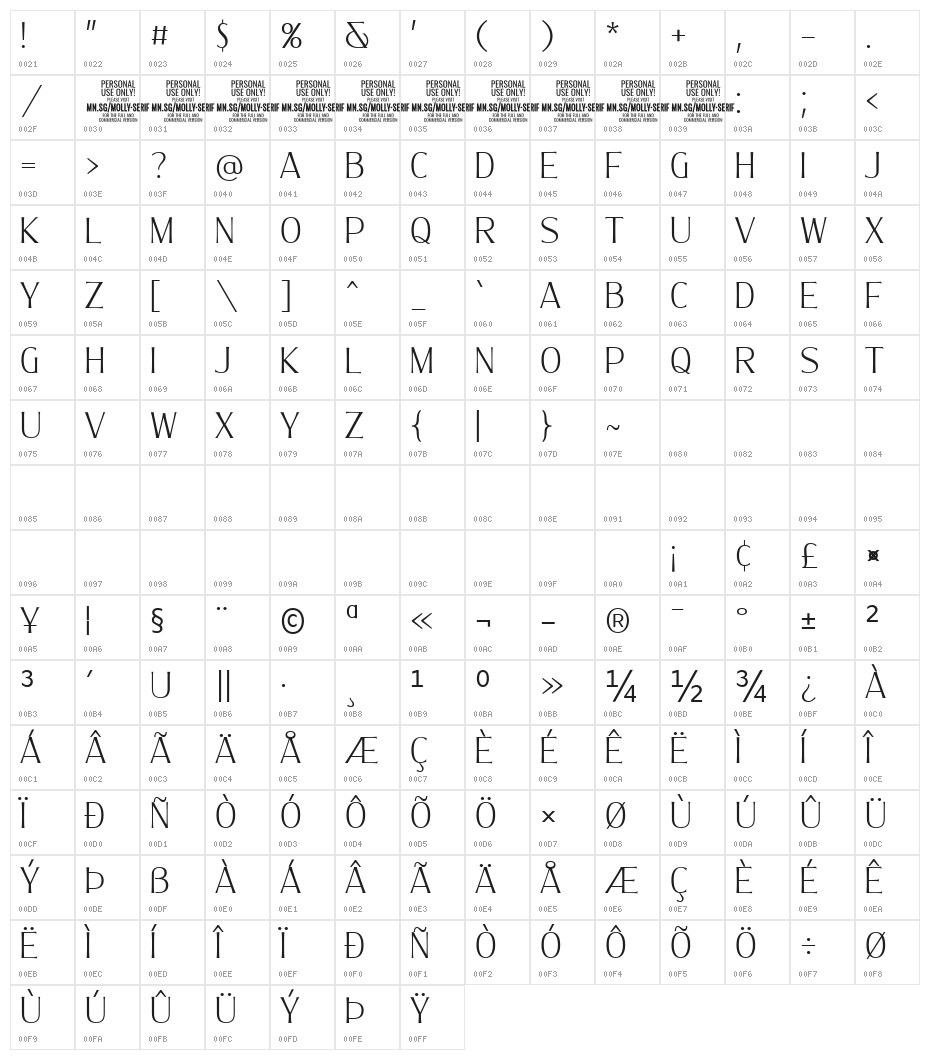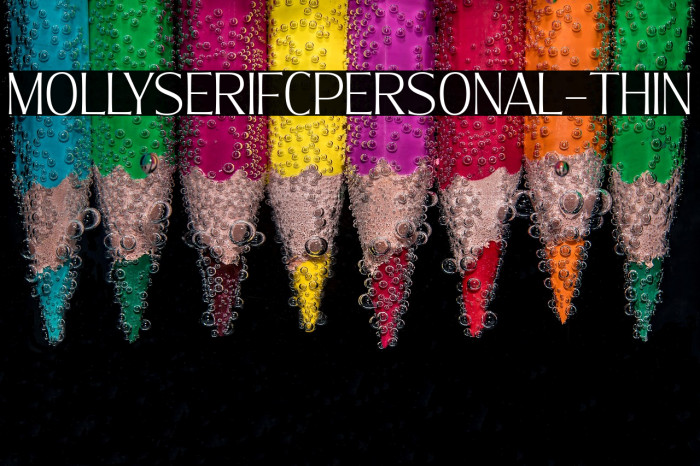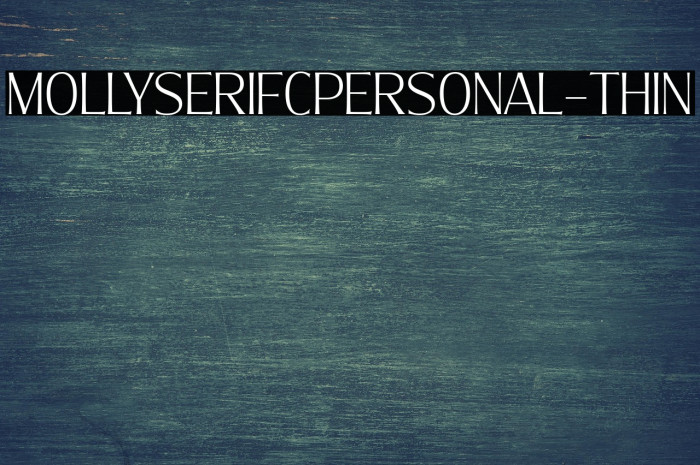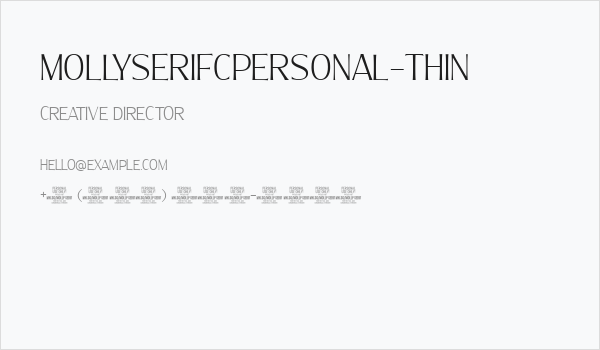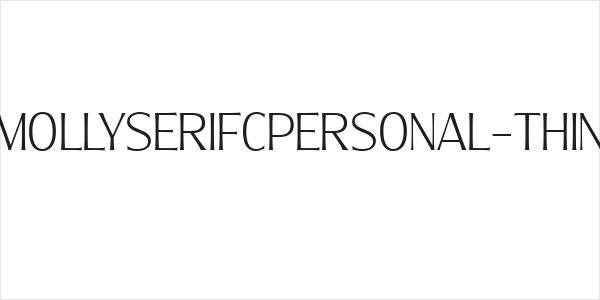
MollySerifCPERSONAL-Thin Font
MollySerifCPERSONAL-Thin Description
This font features a refined and elegant serif style with thin, elongated strokes that give it a sophisticated and modern appearance. The characters are well-defined with sharp serifs, providing a classic yet contemporary look. The uppercase letters are tall and narrow, while the lowercase letters maintain a consistent style, enhancing readability. The numbers and special characters are designed to complement the overall aesthetic, making this font versatile for various applications. Its thin weight adds a touch of delicacy, suitable for projects that require a subtle and stylish typeface.
| Use Case | Headlines, Logos, Editorial Design |
| Proposed Projects | Ideal for elegant invitations, high-end branding, editorial design, and sophisticated packaging. |